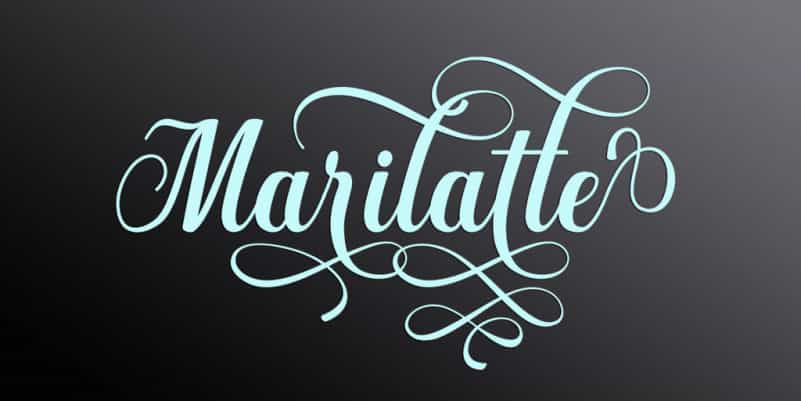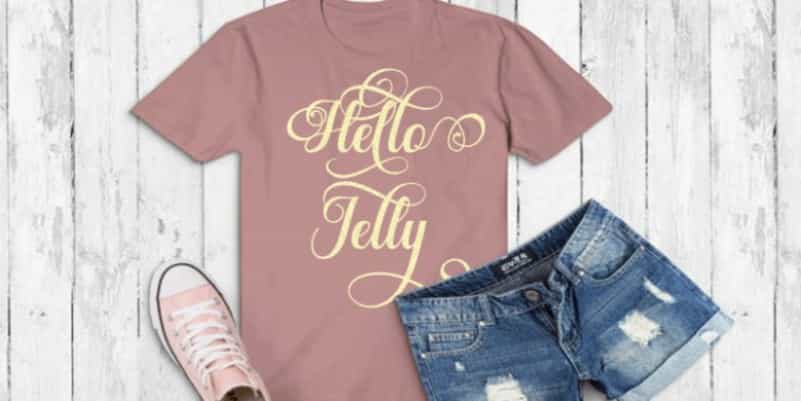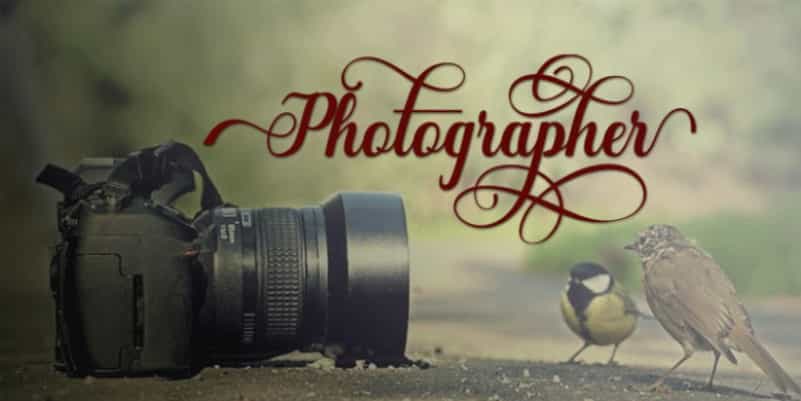
Marilatte Script is a new fresh and modern style with handmade calligraphy, decorative characters and dancing lineage!Thus, invitations such as greeting cards, branding material, business cards, quotes, posters, and so on are very good!